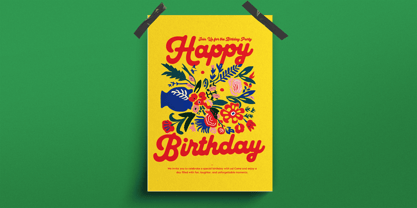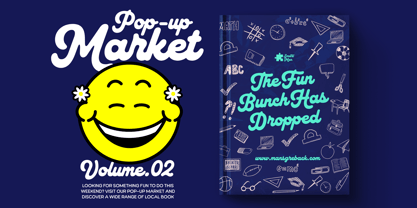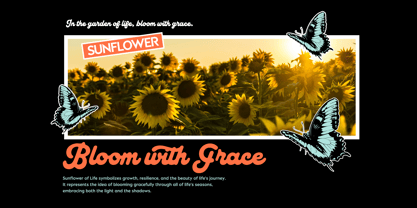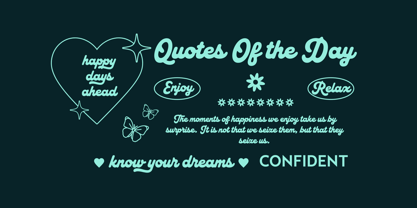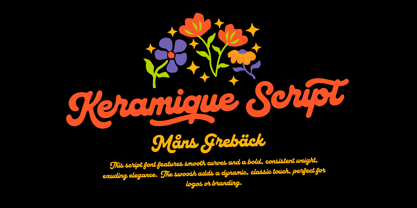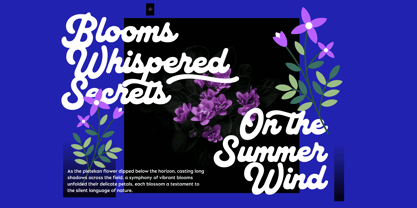
Keramique Script
by Mans Greback
The Keramique Script Font Family was designed by Måns Grebäck and published by Mans Greback. Keramique Script contains 6 styles and family package options. More about this family
Keramique Script friendly cursive font, designed with a smooth feel and playful look. Its flowing lines make a wonderful lettering, perfect for titling and logotypes.
Keramique Script has a solid baseline with a comfortably high x-height, providing for a bold text that's easily read. It is perfect for logo branding, or perhaps on a menu for a diner.
The font is built with advanced OpenType functionality and guaranteed top-notch quality, containing stylistic and contextual alternates, ligatures and more automatic and manual features; all to give you full control and customizability.
It has extensive lingual support, covering all Latin-based languages, from North Europa to South Africa, from America to South-East Asia. It contains all characters and symbols you'll ever need, including all punctuation and numbers.
This font was made by Mans Greback with a smooth and bold expression, with the objective to craft a playful script that still maintains legibility.
Designers: Måns Grebäck
Foundry: Mans Greback